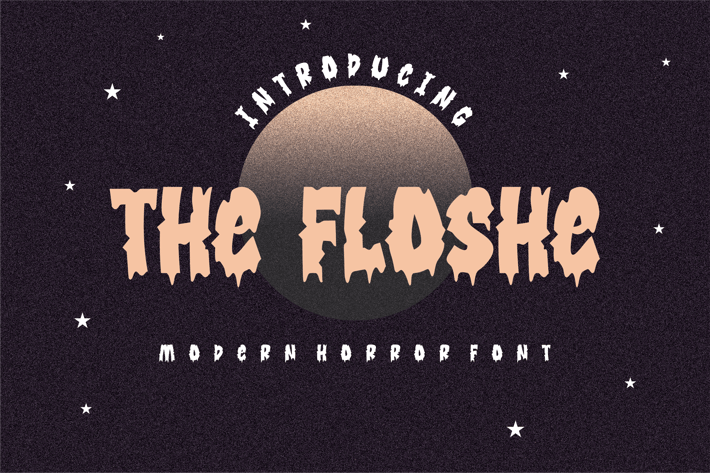
Thefloshe Font
Introducing our new product the name is Thefloshe Font. Modern Decorative Fonts that feels beautiful classy, elegant, and modern. This font is perfectly suited for a wide variety of projects, such as signature, stationery, logo, wedding, typography quotes, magazine or book cover, website header, branding, packaging design, and more. Also, fashion-related branding or editorial design displays both masculine and feminine qualities.